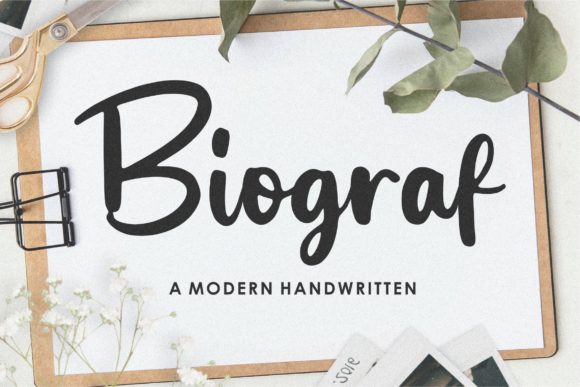
Bringing Biograf to Life on Labels, Cards, and Packaging
It started with a single candle label. I had been staring at my screen for what felt like the better part of an hour, cycling through the same dozen script fonts, none of which captured the quiet warmth I wanted for my new batch of lavender soy candles. Then I opened Biograf, typed the words “calm + comfort,” and everything clicked. That first test print came out of my inkjet printer, and I remember holding it up to the light, smiling at how the letters seemed to dance just enough without losing their shape. That moment—when a font finally feels right for your product—is exactly what I want to talk about today. If you are a handmade seller, a printable creator, or someone who spends way too much time choosing typefaces for product labels, Biograf deserves a close look.
A Cursive Font That Feels Like a Gentle Handshake
Biograf is a handwritten cursive font with a dainty, joyful presence. It is not the kind of bold, in-your-face script that screams for attention. Instead, it arrives quietly, with a relaxed rhythm that feels personal and inviting. The strokes are clean and uncluttered, with just enough irregularity to remind you that a real human hand drew these letters. This is a font that works beautifully for wedding invitations, greeting cards, branding projects, and any design that needs a touch of soft elegance without feeling stiff or formal.
When I first started using Biograf on my product tags, I noticed something subtle but important. Customers who received my packages began mentioning the tags specifically—how the handwriting style made the packaging feel like a note from a friend rather than a mass-produced label. That emotional connection is exactly what Script Amp fonts like Biograf are designed to create. They bring personality into packaging, and in a world of generic typography, personality sells.
Real Products That Shine with Biograf
Over the past few months, I have tested Biograf across a handful of product categories, and I keep coming back to it for specific use cases. Here is where this font truly earns its place in your creative toolbox.
Candle and Soap Labels
For small-batch candles and handcrafted soap bars, the label is often the first physical touchpoint a customer has with your brand. Biograf handles short scent names and descriptive phrases beautifully. “Wild Rose + Honey” or “Morning Ritual” look like they were written into the label by hand. I pair it with a simple sans serif for ingredient lists and safety information, which keeps the overall design balanced and readable.
Greeting Cards and Wedding Stationery
This is where Biograf really feels at home. For birthday cards, save-the-date cards, and wedding welcome signs, the font adds a layer of intention that printed block letters simply cannot match. I recently designed a small batch of thank-you cards using Biograf for the headline and a clean serif for the body text. The contrast worked perfectly, and the cards sold out faster than I expected.
Printable Wall Art and Digital Downloads
If you create digital printables for Etsy or your own shop, Biograf is a strong candidate for quote art and typography posters. Short, meaningful phrases like “be kind” or “grow at your own pace” become visual anchors in a room. Because the font has a light, airy feel, it works well on neutral backgrounds with plenty of white space. I also use it for planner page headers and sticker sheets aimed at bullet journal enthusiasts.
Boutique Tags and Packaging Inserts
For clothing, accessories, or gift items, a handwritten font on a hang tag or a care card can make your packaging feel curated. I print Biograf on kraft paper tags using a standard inkjet printer, and the slightly imperfect texture of the paper actually enhances the hand-drawn look. Adding a small swash or alternate letter from the font’s character set gives each tag a custom feel.
Seasonal and Holiday Designs
When the holidays roll around, Biograf becomes my go-to for gift tags, treat bag labels, and advent calendar stickers. The cursive style adds a nostalgic warmth to Christmas and seasonal designs. I have used it for “Merry Christmas,” “Happy Holidays,” and “Joy to the World” with consistent results—the letters flow naturally and never feel forced.
Practical Considerations for Cutting Machines and Printers
One of the first questions I ask when I consider a new script font is whether it will work with my cutting machine. I use a Silhouette for custom stickers and vinyl decals, and Biograf has performed reliably. The clean, open letterforms mean that the machine can trace the paths without excessive weeding. For smaller text—think gift tags under two inches—I recommend sizing the font up slightly and testing a single cut before committing to a full sheet. The delicate swashes and thin strokes are best reserved for larger applications where the details can breathe.
For printed labels and cards, readability is excellent at sizes above 14 points. Below that, the cursive rhythm can blur together, especially on textured paper. If you are printing on soft, fibrous stock, consider using a slightly heavier weight or scaling the text larger to preserve legibility.
Pairing Biograf with Other Fonts
No font works entirely alone, and Biograf is a gracious partner when paired thoughtfully. Here are a few combinations I have tested in my own shop.
If you are working on a new product line, a seasonal collection, or a refreshed brand identity, I encourage you to test Biograf on a few mockups early in the process. Print it at actual size. Hold it in your hands. See how it feels on the material you plan to use. That tactile test, more than anything on a screen, will tell you if this font belongs in your shop.